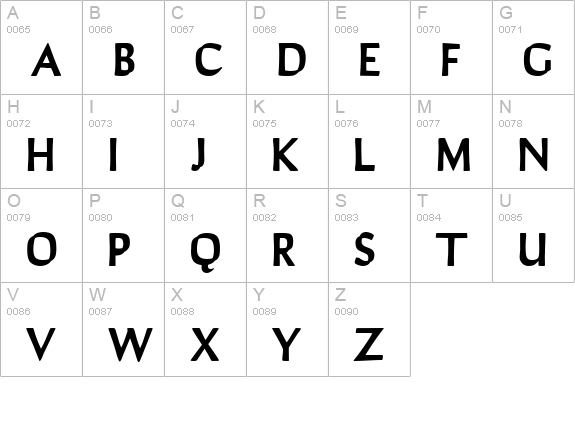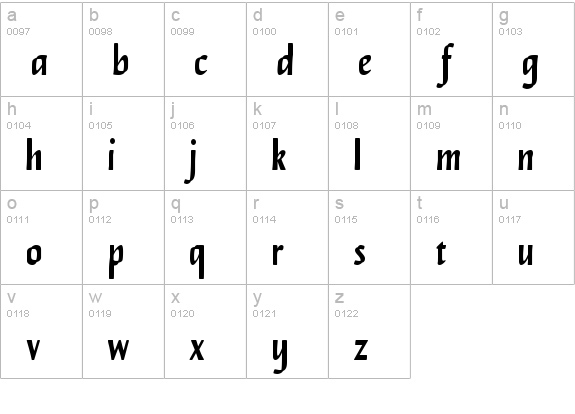
Lapis Lazuli Demi Font Details
Lapis Lazuli Demi is a sub-bold, structured variant in the Lapis typeface family \xE2\x80\x94 well suited to sub-headlines and emphasised passages.
Lapis Lazuli Demi font exudes elegance and sophistication with its sleek lines and modern design. This versatile typeface is perfect for a wide range of projects, from branding to editorial design. The striking boldness of the Demi weight commands attention while maintaining a sense of refinement. And the best part? Lapis Lazuli Demi font is available for free download at FontsMarket.com. You can easily enhance your creative projects with this stunning font, without breaking the bank. Embrace the beauty and versatility of Lapis Lazuli Demi font and elevate your designs to new heights.